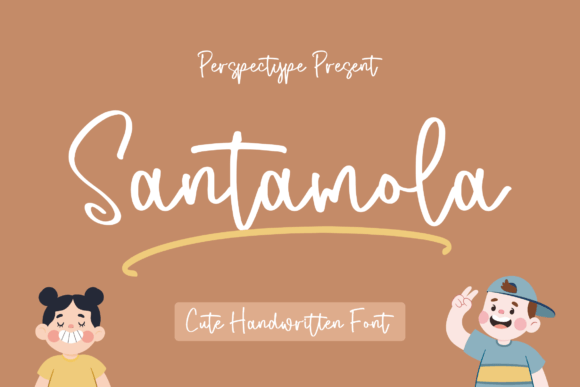
Unleash the Charm and Enticement of Santamola Font: A Journey into Creative Elegance and Beauty
Prepare to be captivated by Santamola, a script font that exudes charm and elegance. Its meticulously crafted curves and flowing lines evoke a sense of whimsy and sophistication, inviting you to embark on a creative journey like no other. Discover the infinite possibilities that await you as you immerse yourself in the enchanting world of Santamola.
Santamola's versatility shines through in its ability to seamlessly adapt to a variety of design projects, including logos, branding endeavors, homeware designs, product packaging, mugs, quotes, posters, shopping bags, t-shirts, book covers, name cards, invitation cards, greeting cards, labels, photography, watermarks, special events, and any other project that craves a touch of sophisticated charm.
With Santamola as your creative companion, you'll have the power to transform ordinary designs into captivating works of art. Its intricate details and graceful strokes will elevate your projects to new heights, leaving a lasting impression on your audience.
Immerse yourself in a world of boundless creativity and let Santamola guide you towards design excellence. Embrace the beauty, embrace the charm, and embrace the endless possibilities that await you with Santamola.